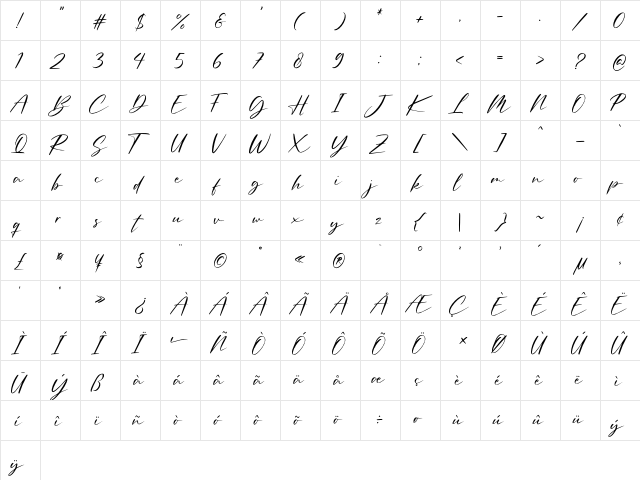
Amellian Gressida Regular
Design Context for Amellian Gressida Typeface
Amellian Gressida is a composed and adaptable typeface that performs quietly and consistently across a wide range of design contexts.